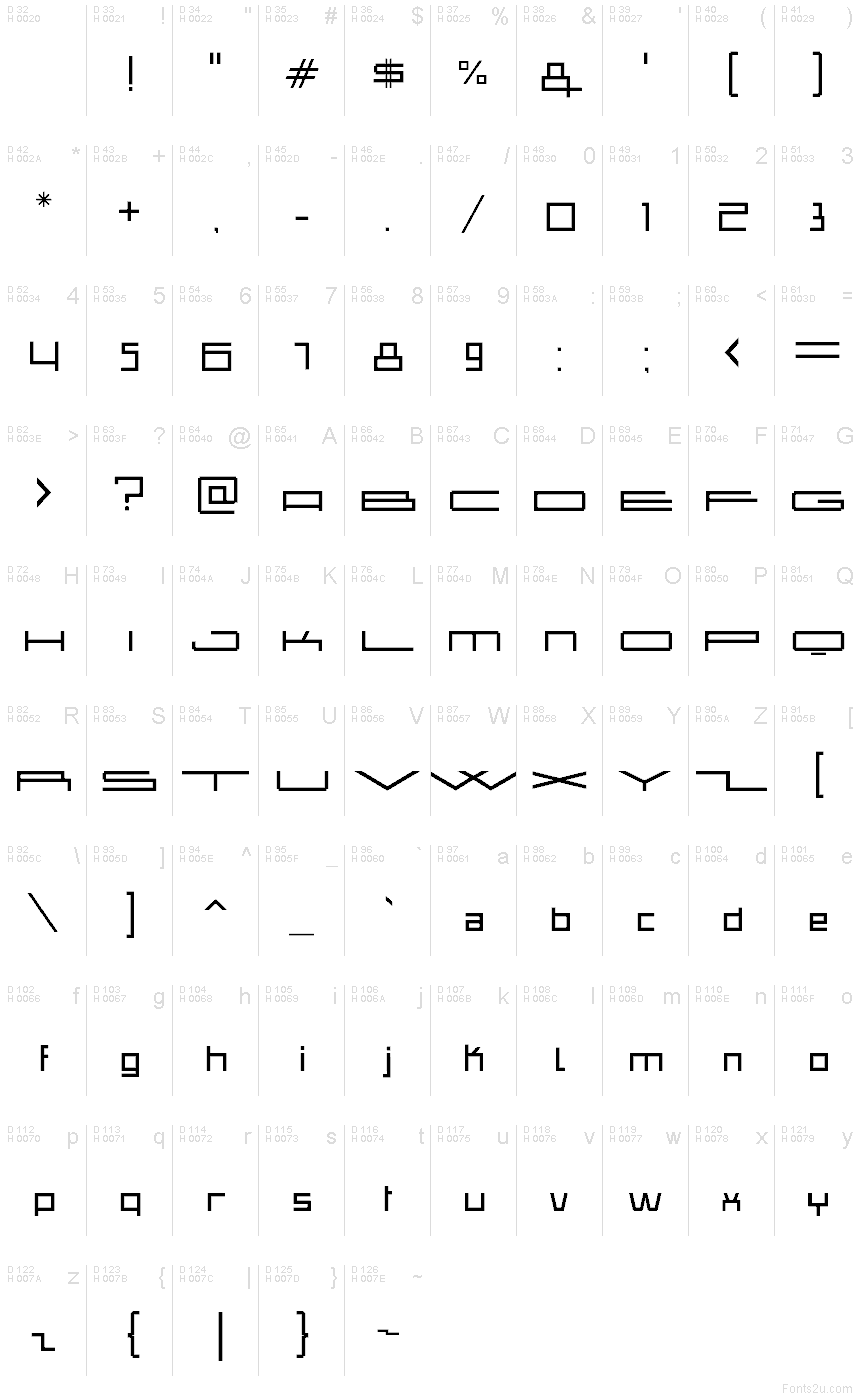
Wide Square Regular
Wide Square font from Galdino Otten Fonts features simplified geometric forms and a minimalist appearance for futuristic and contemporary usage. The techno display font carries an expanded width which makes it appear sleek, stylish, and legible all at once. With smooth letter connectivity, Wide Square can be used in plenty of online or offline projects without any issues.
Use this free display font in gaming apps, sports-themed texts, clothing brands’ names, posters on healthy lifestyles and tech-related innovations, digital interfaces run by AI engines, artistic publications related to modern-day technology or that of the future. Additional possibilities are almost never-ending!